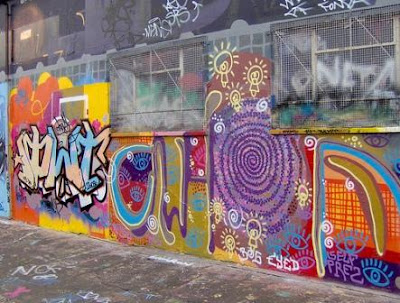
WORTHWHILE for the dark alley to be seen like this one shows by the picture. I think is even lessen the dark of scary alley at the night. Graffiti alphabets can perform as the lifeguard too I suppose. Just look at it, very rich colors that evade the wall with joy. Graffiti alphabets indeed taking its role to beatified the neighbor. That ‘O’ with spiral looks is really seize my gaze, suck it actually. That is the good way of having attention to declare. Making some shocking parts in the graffiti alphabets you make, like that spiral so people who having pass your graffiti alphabets area will just snaps their conscious and realize for your work.